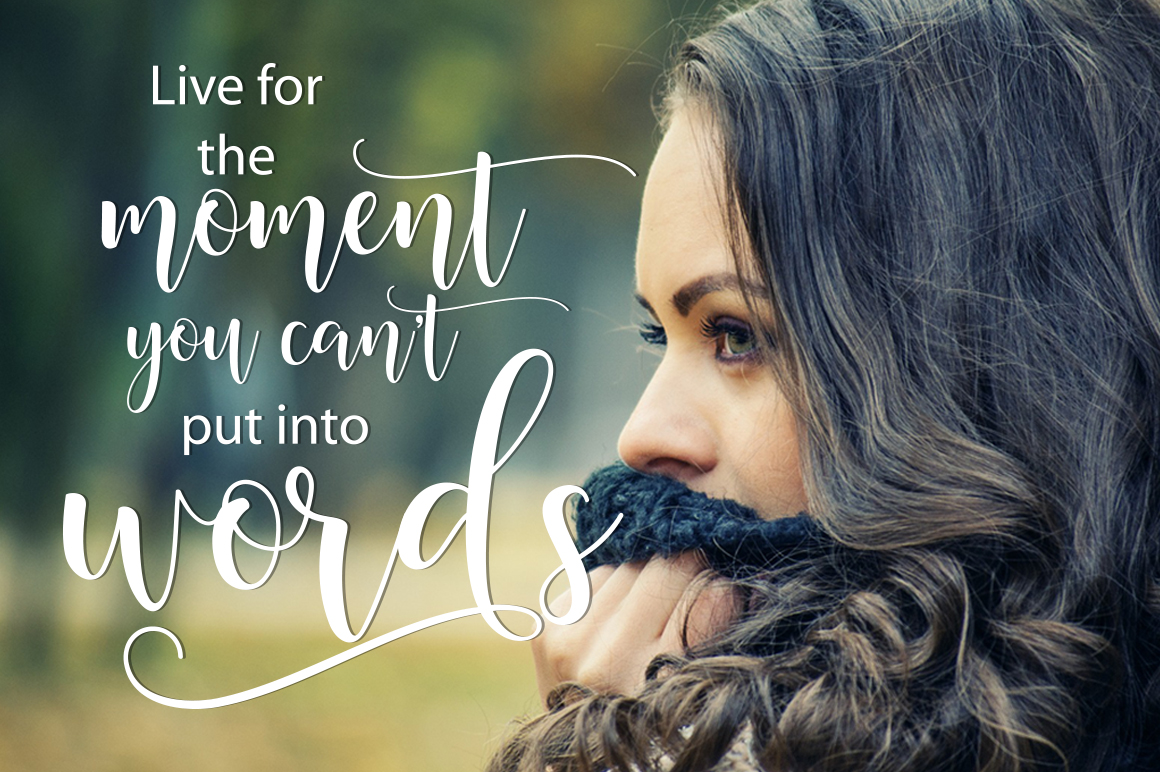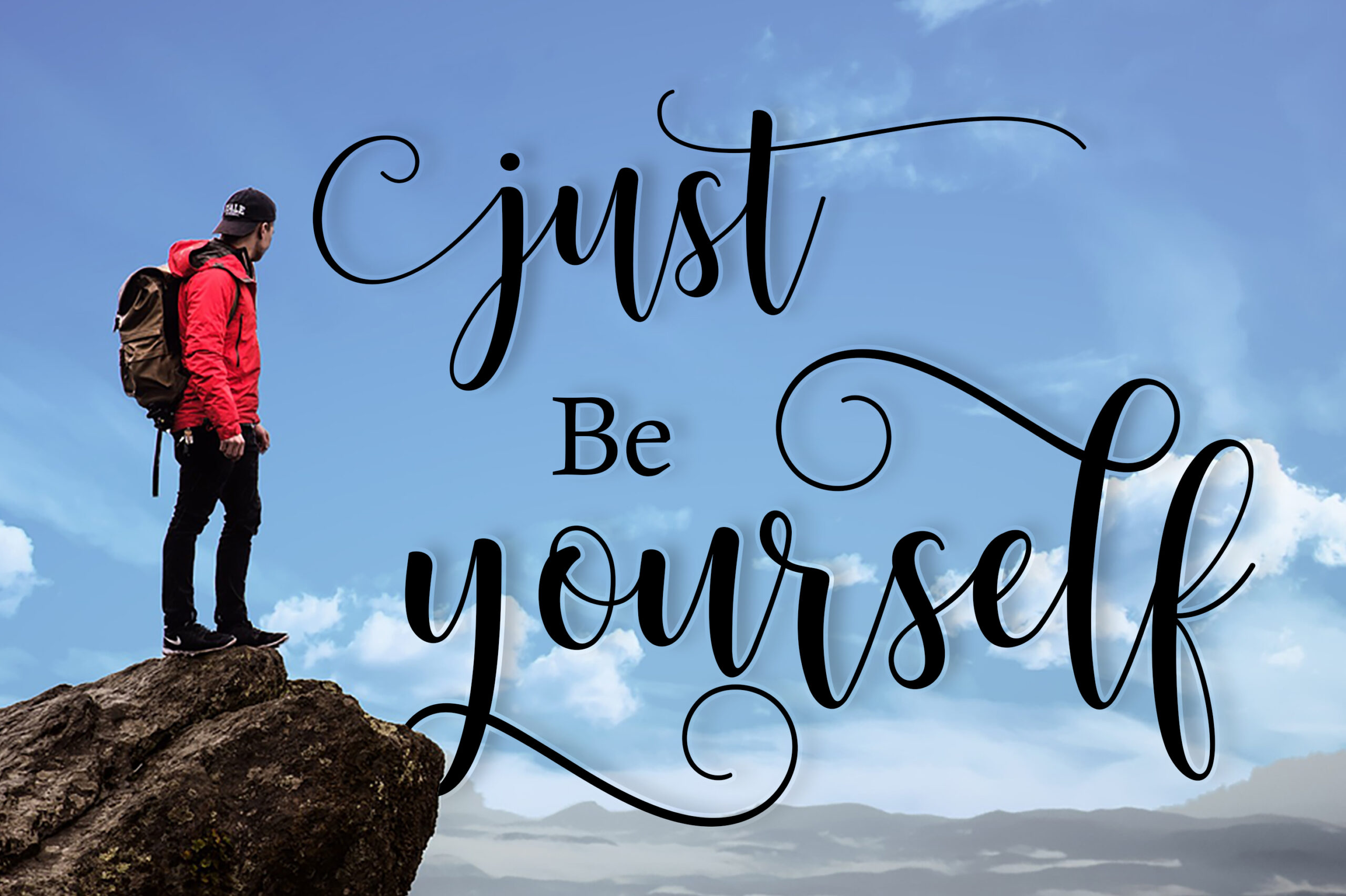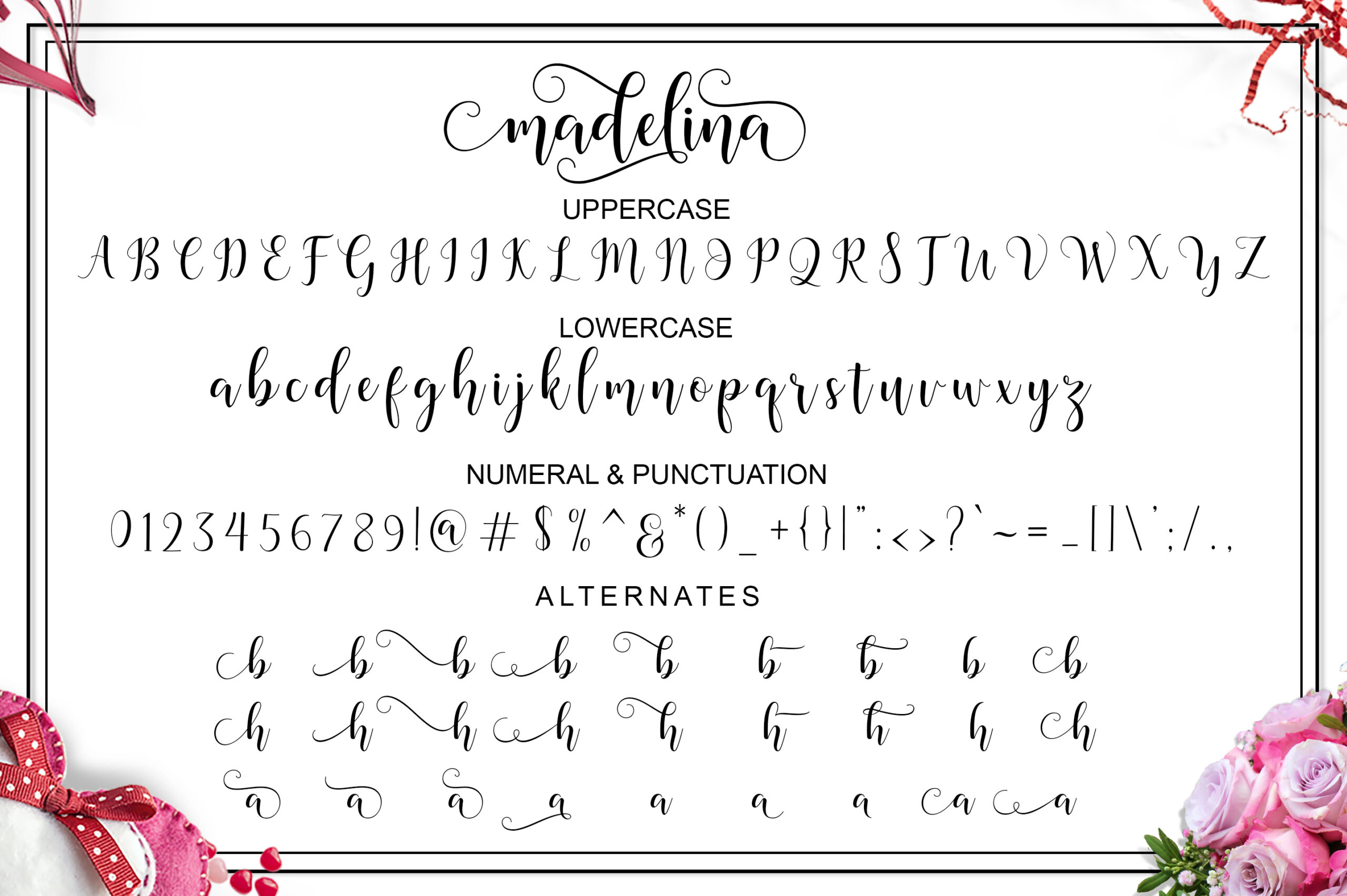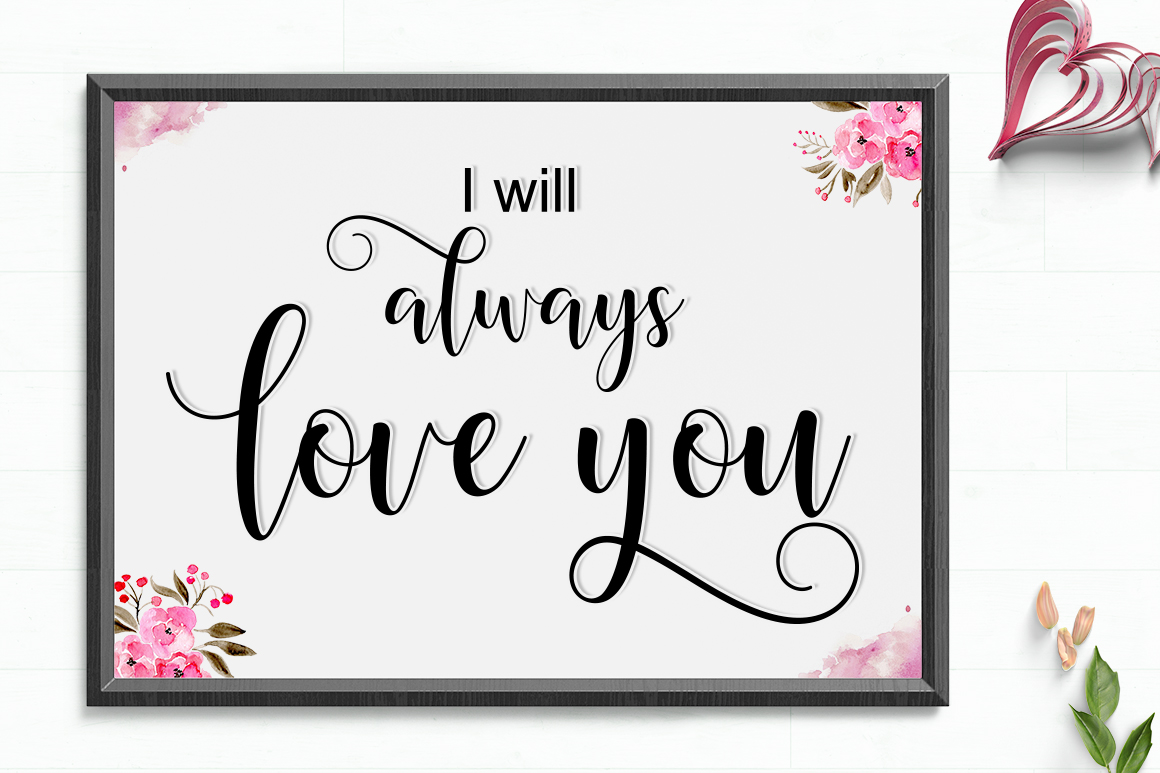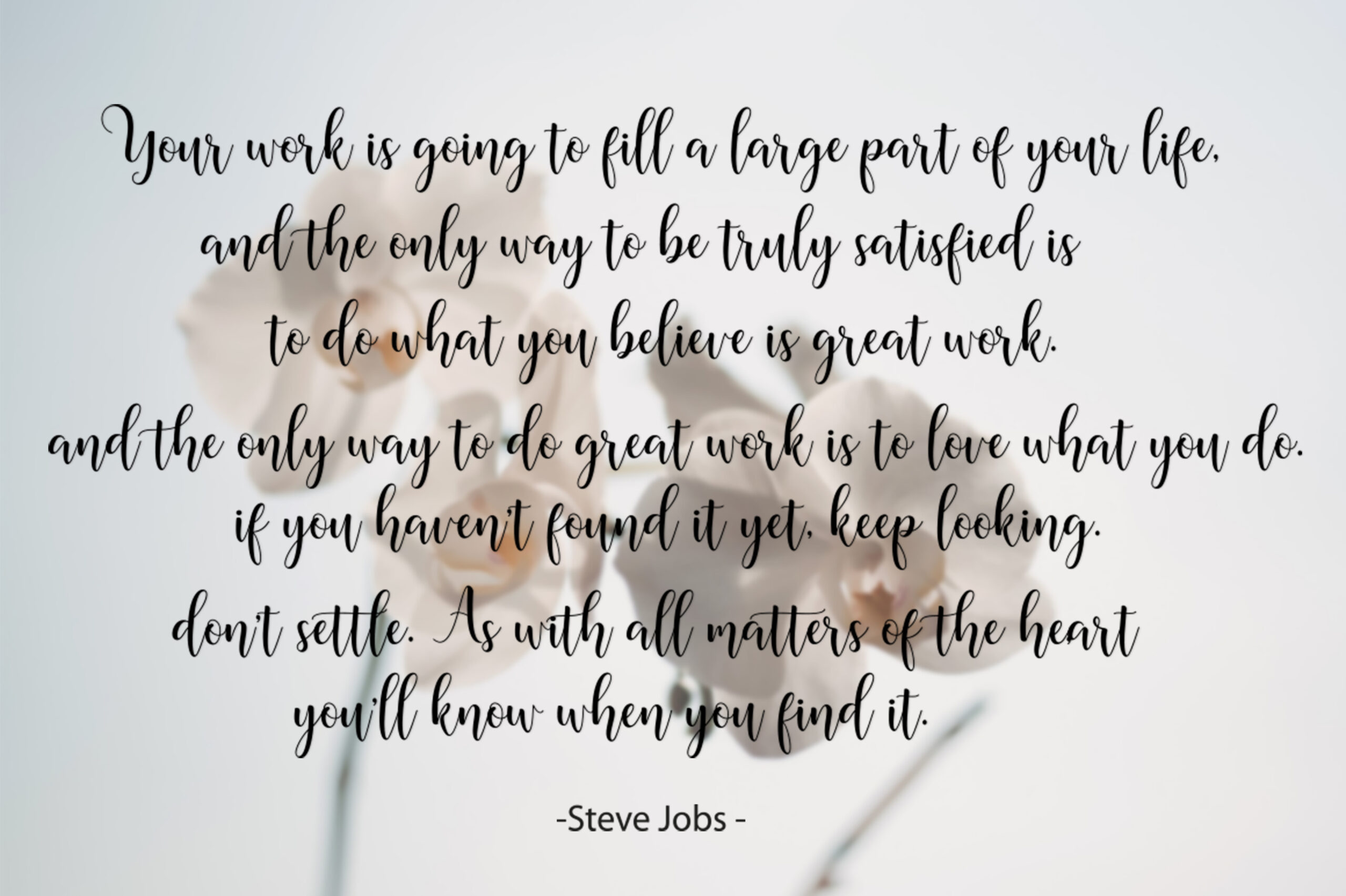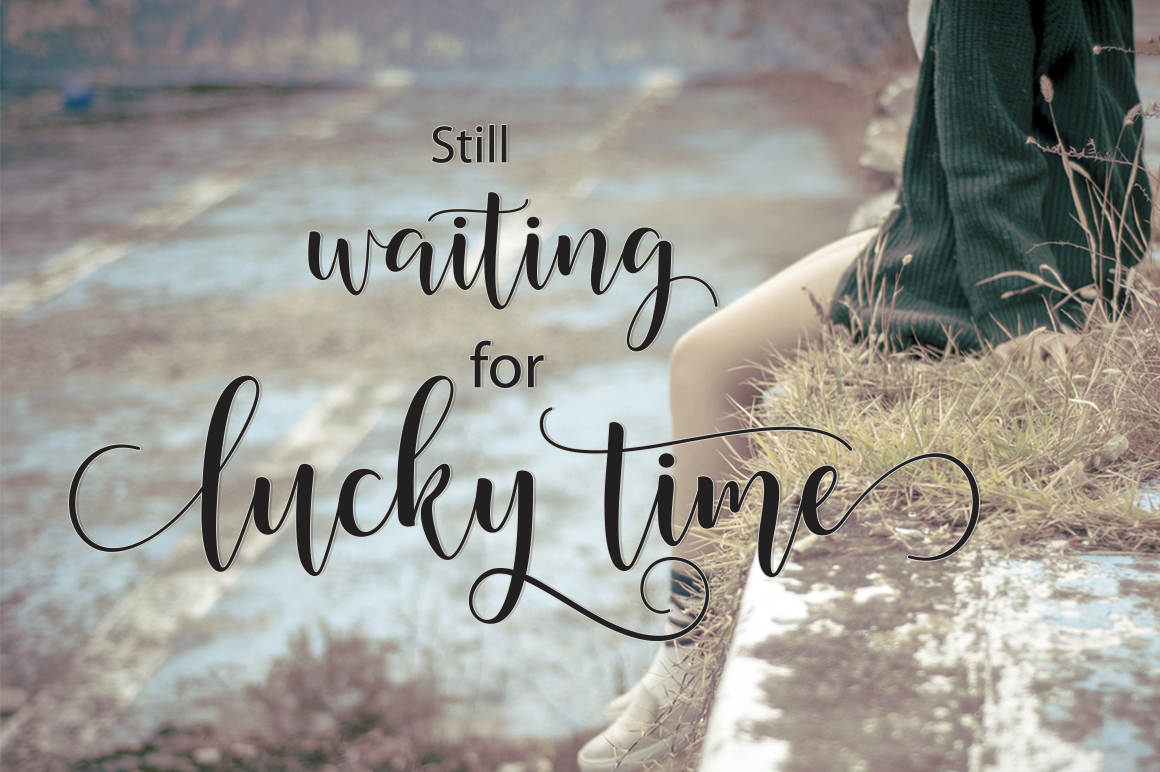
Madelina Script Font
The Madelina Script is a fresh, fluid handmade font with a calligraphic style.
The decorative letters make for great personal designs. The font can be used for decorating wedding invites & birthday cards, creating signs or (personal) branding.
Madelina comes with 600+ unique glyphs.